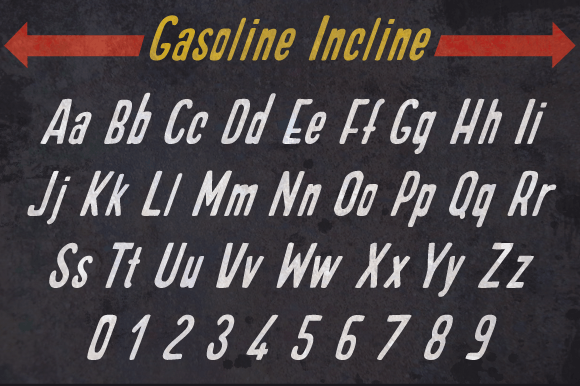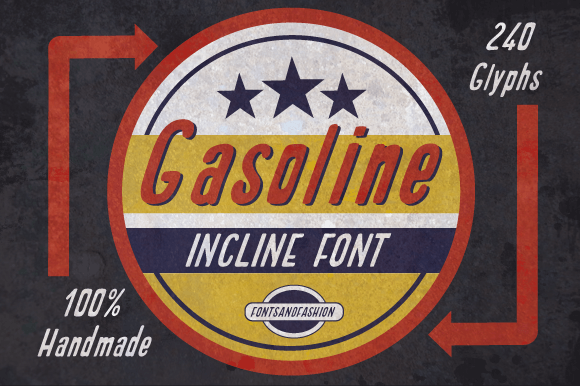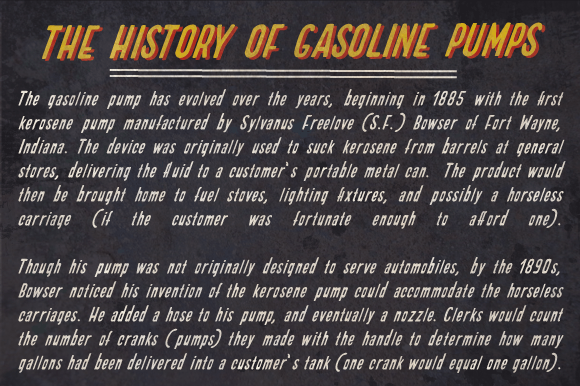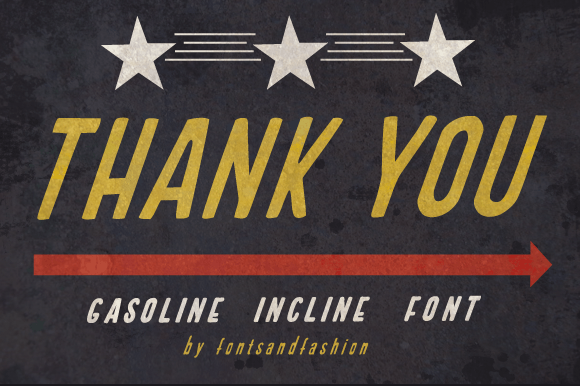
Introduction to Gasoline Incline Font
“Gasoline Incline” comes from the 1950s/1960s inspiration, it takes from the advertising style of that period.
This font features a look of stylish vintage handmade, simple and essential “Gasoline Incline” is perfect for home decoration crafts, posters, product packaging, product designs, label, logo, social media posts, quote, advertisements, invitations, stationery, t-shirt, fabric bag, cover book, and any type of creative projects you can imagine.
Key Features of Gasoline Incline Font